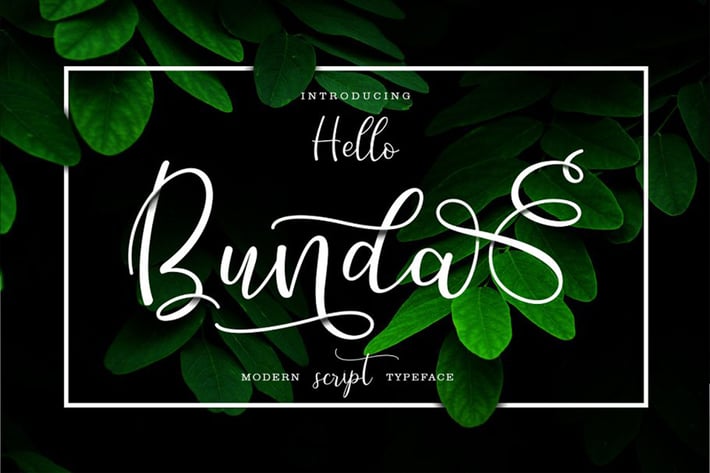
Hello Bunda Font
Greetings world! Introducing the Hello Bunda Script Typeface – a user-friendly font designed for effortless creation of stunning lettering. Simply input your text, and witness the immediate transformation into impressive results.
Hello Bunda exudes a contemporary script style, meticulously crafted to enhance the beauty of every individual letter. Its versatility makes it ideal for a myriad of projects such as quotes, blog headers, posters, weddings, branding, logos, fashion, apparel, letters, invitations, stationery, and more.
Key features of the Hello Bunda Script:
Uppercase & lowercase
Stylistic alternatives & swashes
Ligatures
Initials & finals
International characters (Multilingual)
Punctuation & symbols